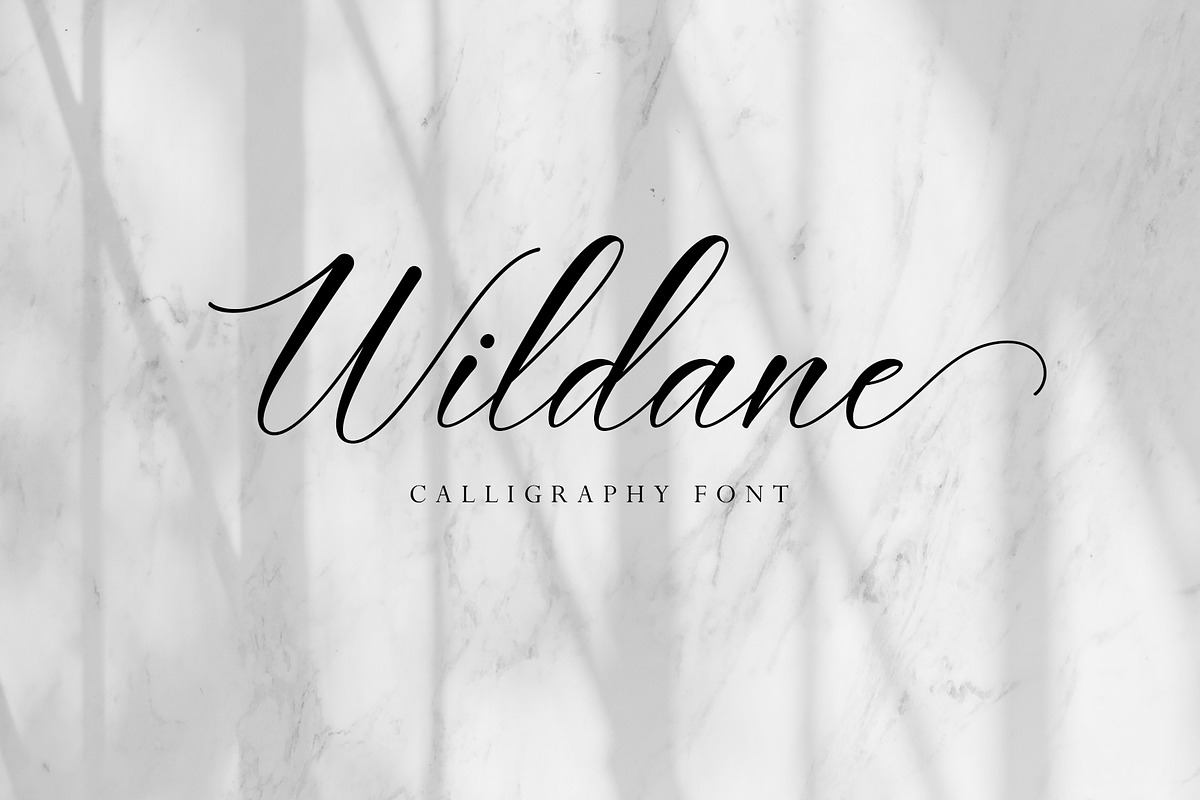
Wildane – Calligraphy Font Free Download is a graceful and flowing script typeface that brings elegance, romance, and artistic beauty to your design projects. Please note, you are required to purchase this font for commercial use. It is available for free download for testing and personal projects only.
With its delicate strokes, stylish swashes, and natural handwritten rhythm, Wildane is perfect for wedding invitations, feminine branding, logo design, product packaging, and social media graphics. It captures the timeless elegance of classic calligraphy with a modern, accessible feel.